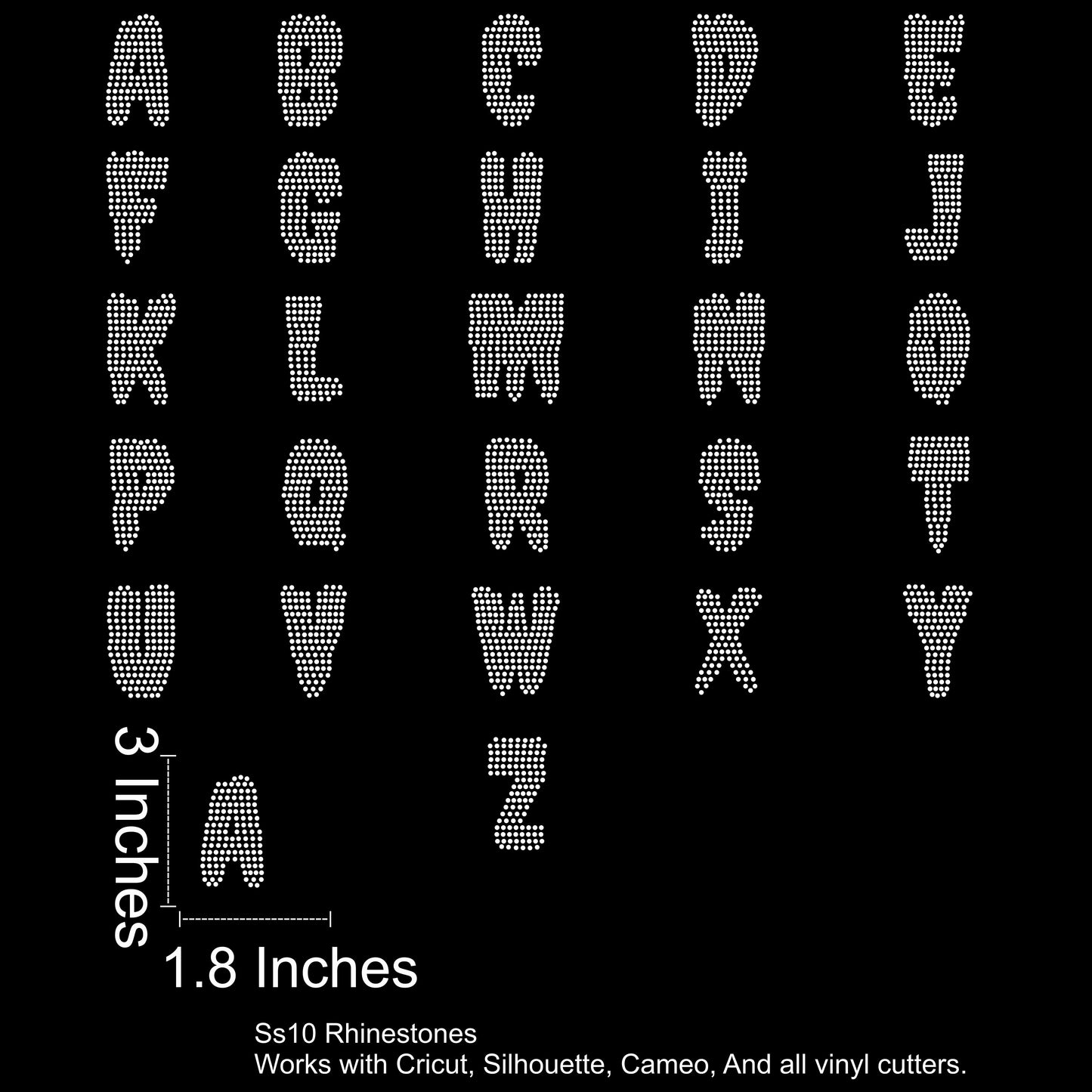
Midnight Drip Font Rhinestone SVG File (3 Inches Tall)
Midnight Drip – Rhinestone Font SVG (SS10 Size Compatible)
Bring bold, drippy vibes to your next project with Midnight Drip, a unique rhinestone font designed specifically for SS10 stones. This all-caps SVG file is perfectly sized and ready to go — just cut, press, and shine.
Font Details:
• Capital letters only (A–Z)
• Each letter approx. 3 inches tall
• Drip-style lettering – perfect for bold statements, edgy designs, or themed drops